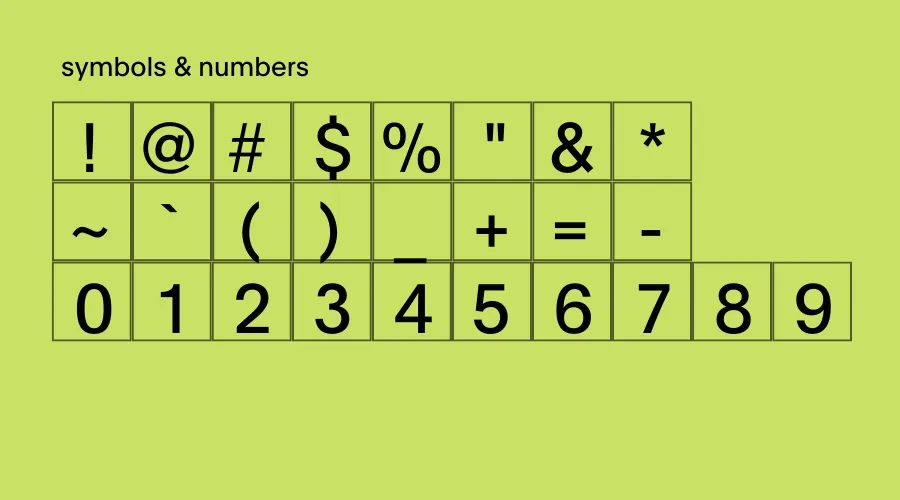
Plain Font
About Plain Font
The Plain Font is a Sans serif typeface that was designed by Francois Rappo and in 2013, this stunning typeface was published through Optimo. It is free and available in both OTF and TTF file formats. This font is a simple but modern typeface so the designer loved to use this typeface for documentation purposes or use in the newspaper etc.
The online generator tool of this font will transform all your simple textures into stylish and trendy shoes. When this gorgeous font was published in the front world, it gained soo much popularity in a very short time, because it supports many international languages such as English, Mandarin, Hindi, Spanish, French, Arabic, Bengali, and Russian.
A similar font to this unique texture is arial font. It is perfect for all your fun tasks and methods. This typeface contains an extra range of features such as alternates, ligatures, fractions, stylistic sets, small caps, and more.
The Plain Font has a neat and good-looking texture look, which is perfect for all your fun tasks and projects. This stunning typeface can be utilized for logos, posters, banners, social media posts, and many other projects.
Many designers also used this typeface for some of your projects including logos, poster designing, and billboards but it is perfect for Resume Designing, or any other.
The pairing quality of this typeface is amazing and can easily be paired with euro sans font and designs outstanding projects. You may also utilize this font for card designs, like invitation cards, office cards, birthday cards, office cards, business cards, and many more.
• Plain Regular
• Plain Regular Italic
• Plain medium
• Plain Medium Italic
• Plain Bold
• Plain Bold Italic
• Plain Extra Bold
• Plain Extra Bold Italic
Font Pairing
Plain is a sans-serif typeface So Sabon Font is a perfect pairing font with this font.
What is Plain Font?
Plain Font is a Sans serif typeface that has been designed by Francois Rappo and published this typeface through Optimo in 2013.